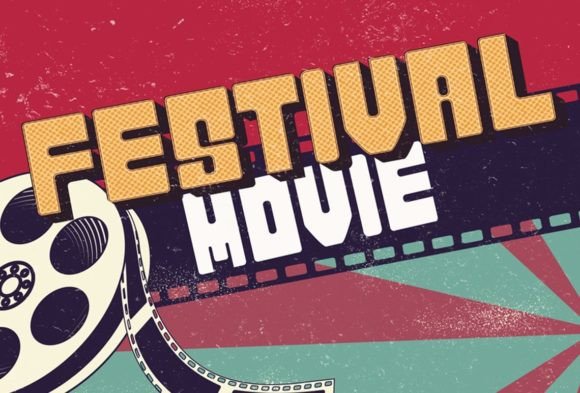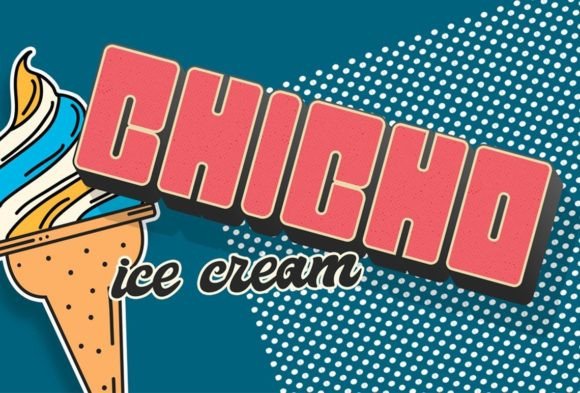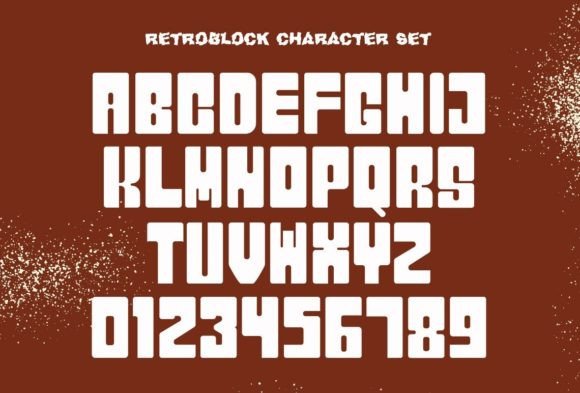
Introduction to Retroblock Font
Have you ever found yourself stuck in a design rut, yearning for that perfect element to elevate your creative project from good to great? For designers, that ‘aha’ moment can be elusive, but what if I told you that it’s just a font away? Imagine a font that screams confidence, radiates joy, and adds a nostalgic charm to your designs. Welcome to the world of Retroblock Font, a bold display font that’s about to revolutionize your design game.
As a valuable design resource, Retroblock Font is a high-quality addition to any creative project. With its transparent background and free download option, it’s an accessible and versatile tool that’s sure to stand out. Whether you’re working on a retro-themed campaign or simply want to add a touch of nostalgia to your design, Retroblock Font is the perfect companion to take your work to the next level.
Key Features of Retroblock Font
- Unique, distressed texture design with a transparent background for seamless integration into creative projects.
- Perfect for adding a touch of nostalgia and retro charm to any design, from logos and branding to posters and packaging.
- Includes a comprehensive character set, including uppercase and lowercase letters, numbers, and special characters.
Honest Review: Retroblock Font
I recently stumbled upon the Retroblock Font while searching for a design resource to enhance my creative project. I was excited to try it out and see how it would fare. Overall, I’m quite impressed with this free download.
- High-quality design: The font is well-designed, with clean lines and a clear structure.
- Easy to use: It’s simple to integrate the font into my design project, and it looks great on a transparent background.
- Perfect for creative projects: The font has a unique, retro vibe that adds a touch of nostalgia to my design.
- Limited character set: The font doesn’t come with a comprehensive character set, which can be a problem if you need to use special characters.
- Not ideal for small text: The font is best used for larger text, as the details can get lost in smaller sizes.
Overall, I’m pleased with the Retroblock Font. It’s a great design resource for creative projects, and it’s free to download. If you’re looking for a unique font to add some character to your design, I’d definitely recommend giving it a try.
To get the most out of the Retroblock Font, use it in conjunction with other design resources, such as graphics and images. Also, experiment with different font sizes and styles to create a unique look.
The Retroblock Font is commonly used in creative projects, such as logos, brochures, and social media graphics. It is also used in design projects that require a high-quality, unique font with a transparent background.